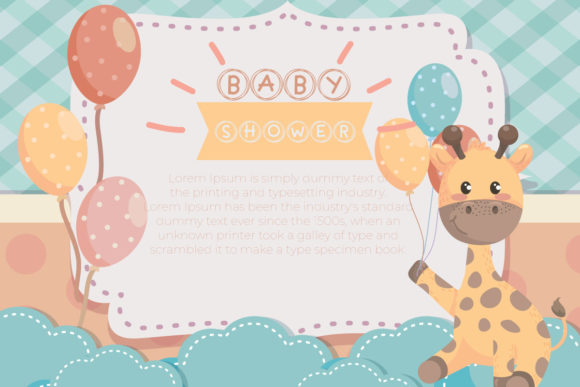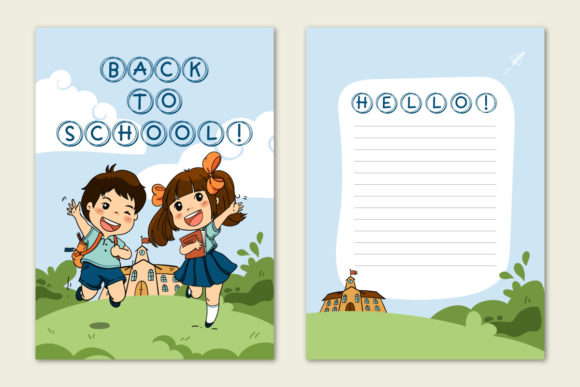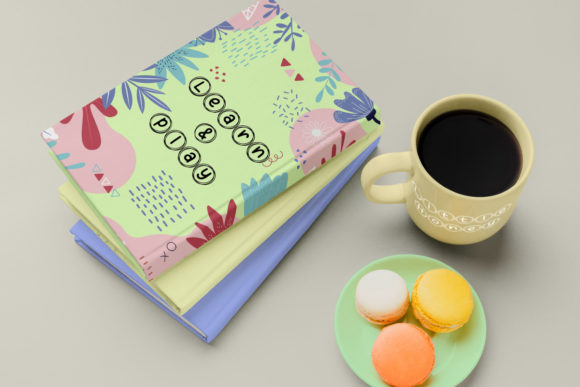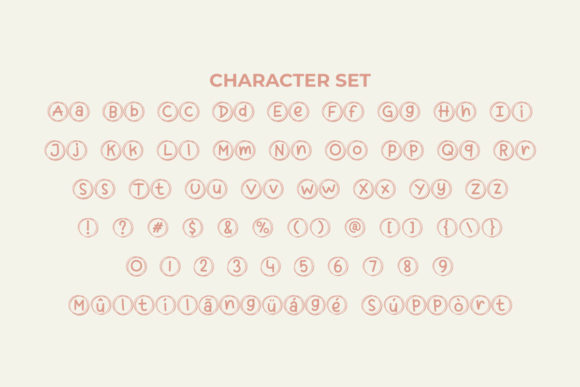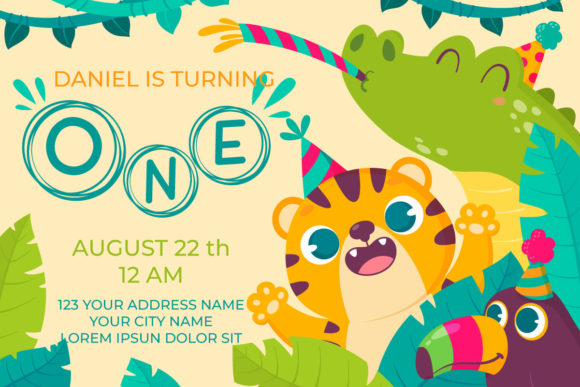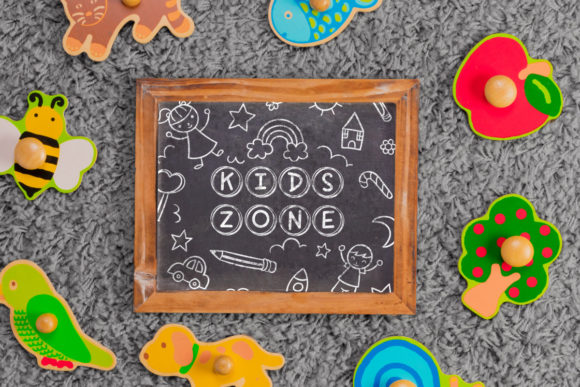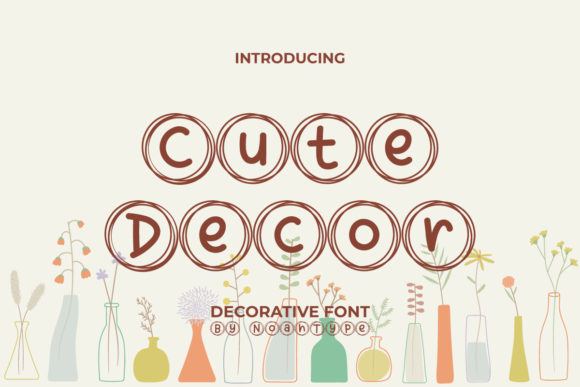
Cute Decor Font: The Perfect Addition to Your Design Projects
Are you a designer or crafter looking for a font that can add a touch of whimsy and playfulness to your projects? Look no further than Cute Decor Font! This cool and adaptable decorative font is perfect for a wide range of businesses and industries, from fashion and games to kids, school, and writers.
What Makes Cute Decor Font So Special?
Cute Decor Font is a unique and versatile font that can be used in a variety of design projects. Its playful and decorative style makes it perfect for adding a touch of personality to your designs, while its adaptability ensures that it can be used in a range of different contexts.
Whether you’re designing a logo, creating a social media graphic, or crafting a handmade project, Cute Decor Font is the perfect choice. Its fun and quirky style is sure to grab attention and add a touch of whimsy to your designs.
Who Can Use Cute Decor Font?
Cute Decor Font is a versatile font that can be used by a wide range of businesses and industries. Some examples of who can use Cute Decor Font include:
- Fashion brands: Add a touch of playfulness to your fashion designs with Cute Decor Font. Perfect for clothing labels, accessories, and more.
- Game developers: Create fun and engaging game titles, logos, and graphics with Cute Decor Font.
- Kids and schools: Use Cute Decor Font to create fun and educational materials, such as worksheets, posters, and activity sheets.
- Writers and authors: Add a touch of personality to your book covers, blog posts, and social media graphics with Cute Decor Font.
Features of Cute Decor Font
Cute Decor Font has a range of features that make it the perfect choice for designers and crafters. Some of its key features include:
- Playful and decorative style: Add a touch of whimsy to your designs with Cute Decor Font’s fun and quirky style.
- Adaptable: Use Cute Decor Font in a range of different contexts, from logos and graphics to crafts and DIY projects.
- Easily readable: Despite its decorative style, Cute Decor Font is easily readable, making it perfect for use in a range of different applications.
- Versatile: Use Cute Decor Font in a range of different design projects, from digital graphics to handmade crafts.
Cute Decor Font is a cool and adaptable decorative font that’s perfect for designers and crafters. Its playful and whimsical style makes it perfect for adding a touch of personality to your designs, while its versatility ensures that it can be used in a range of different contexts.
Whether you’re a fashion brand, game developer, kids’ party planner, or writer, Cute Decor Font is the perfect choice. So why not give it a try and see how it can add a touch of whimsy and playfulness to your designs?